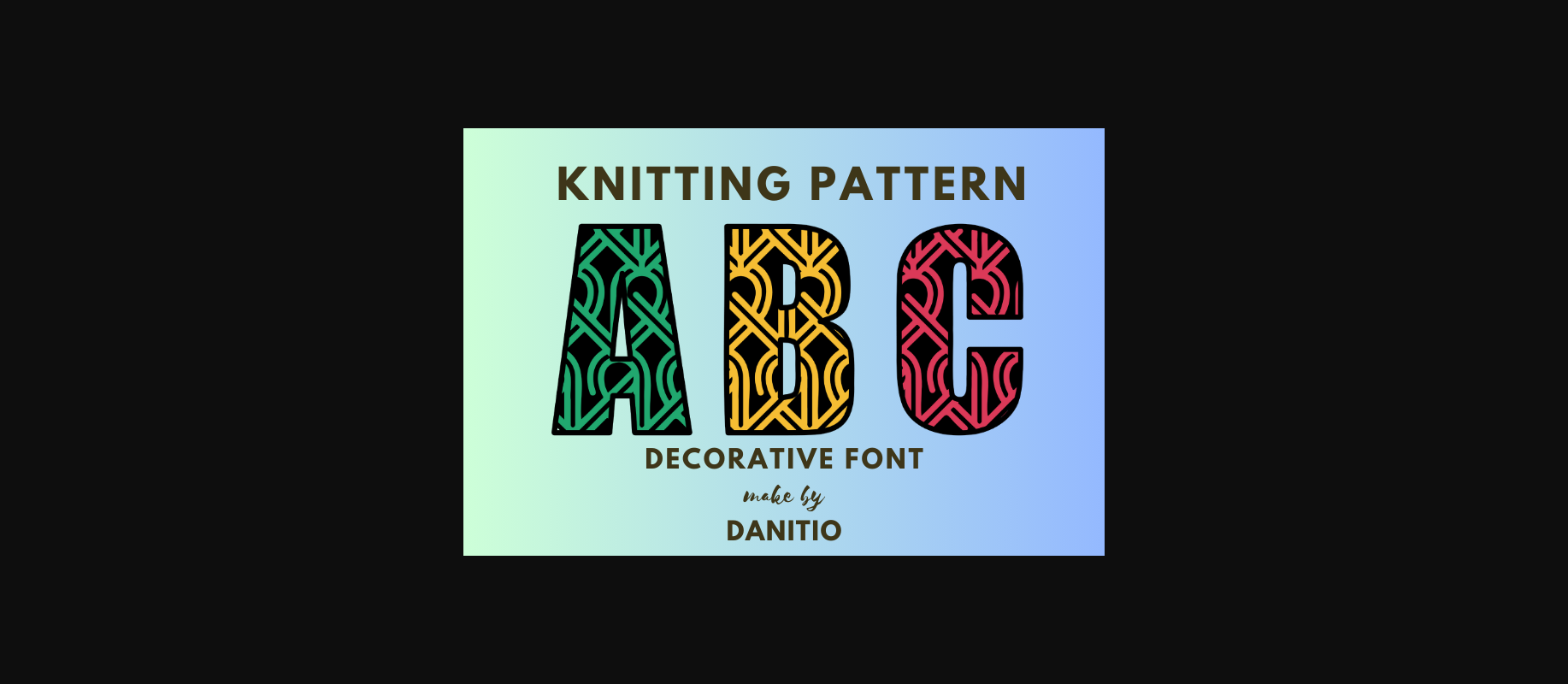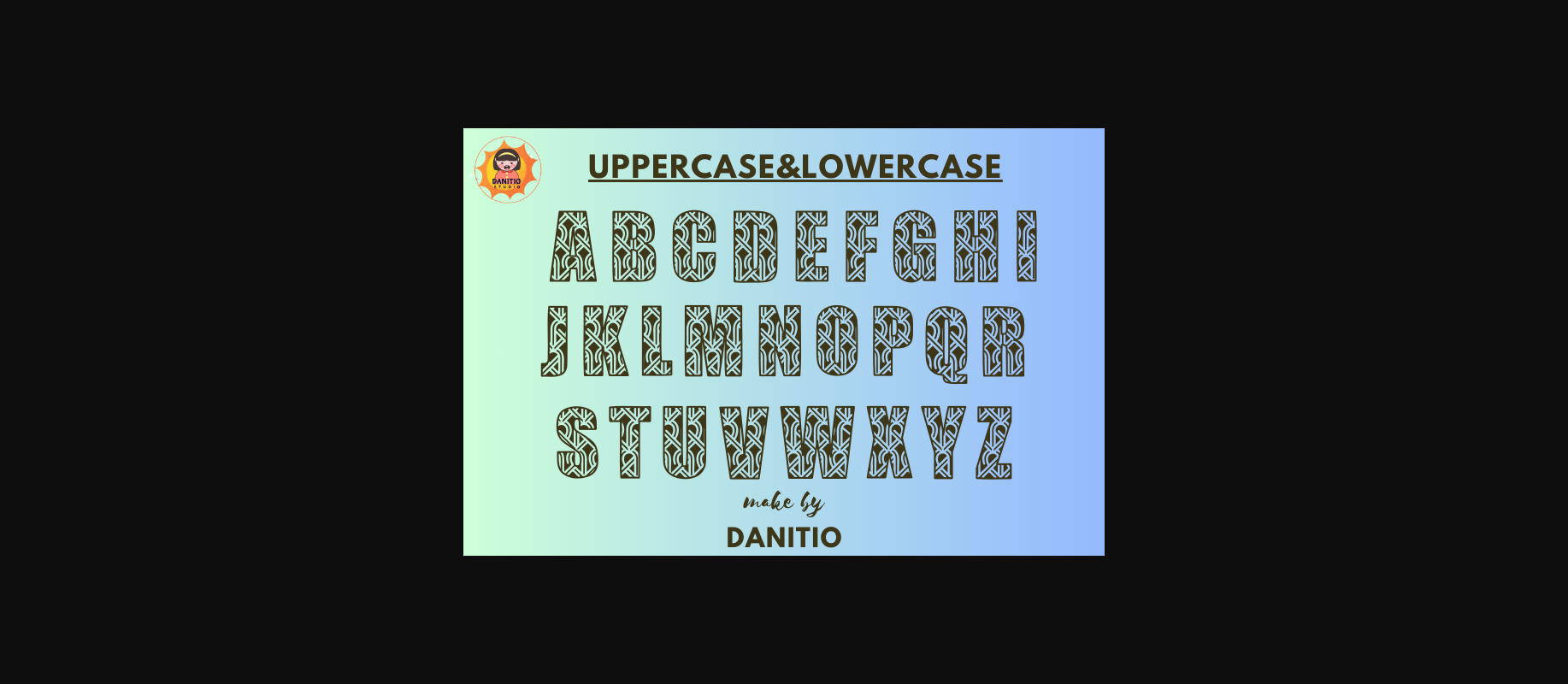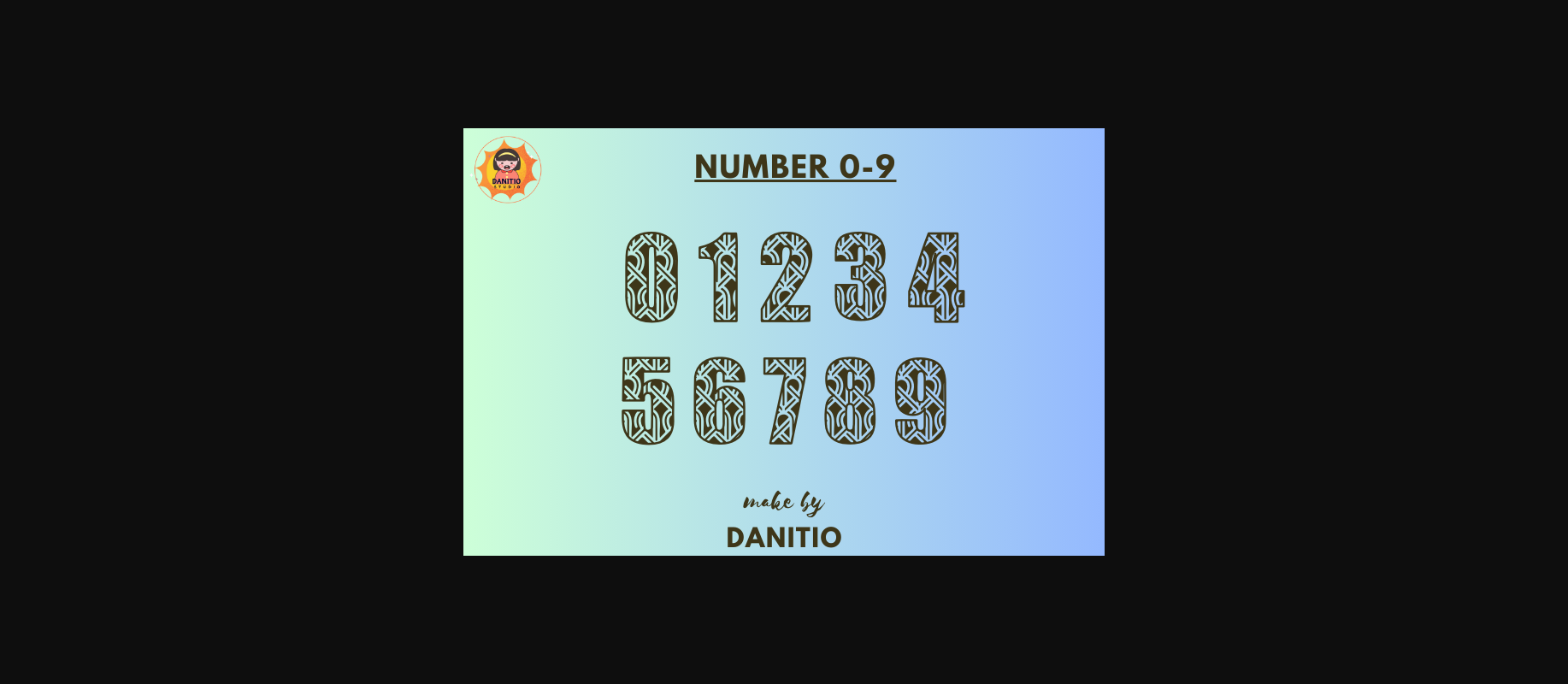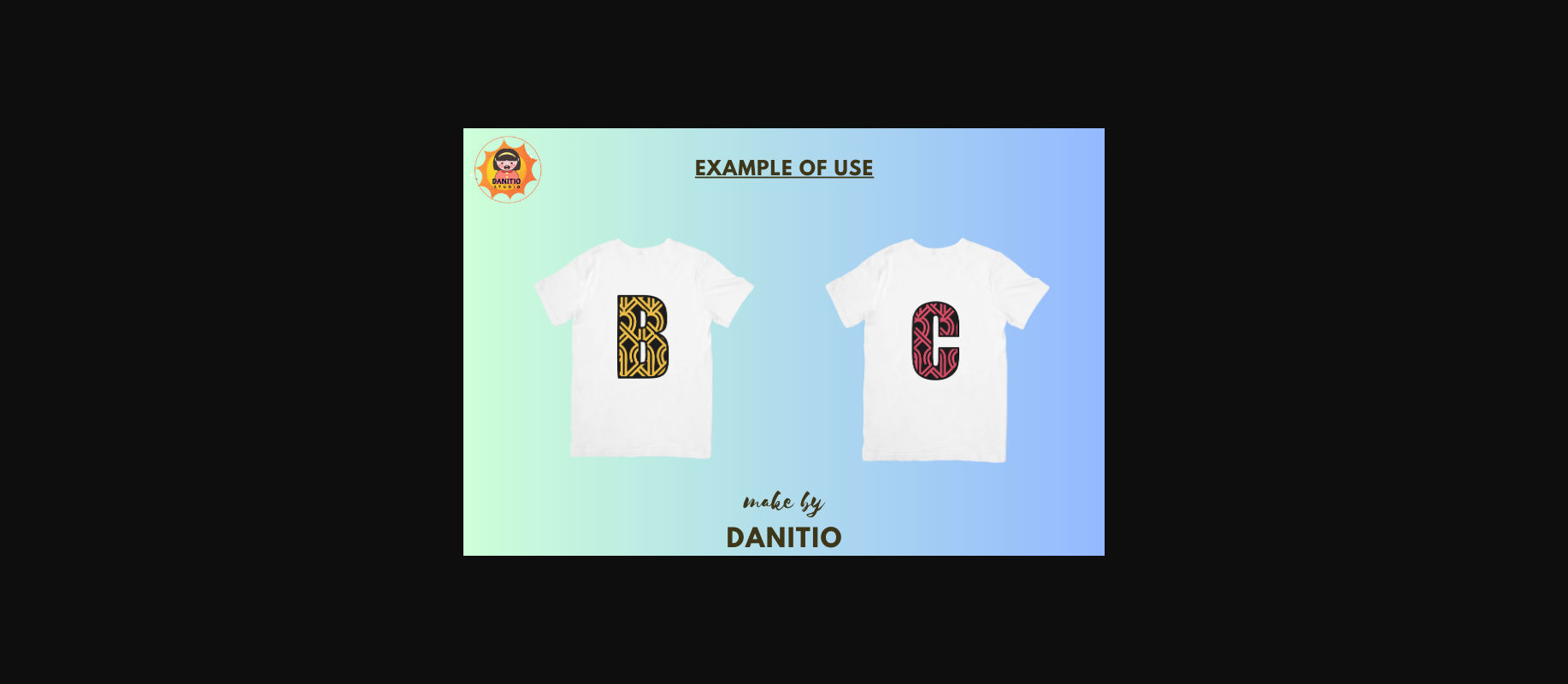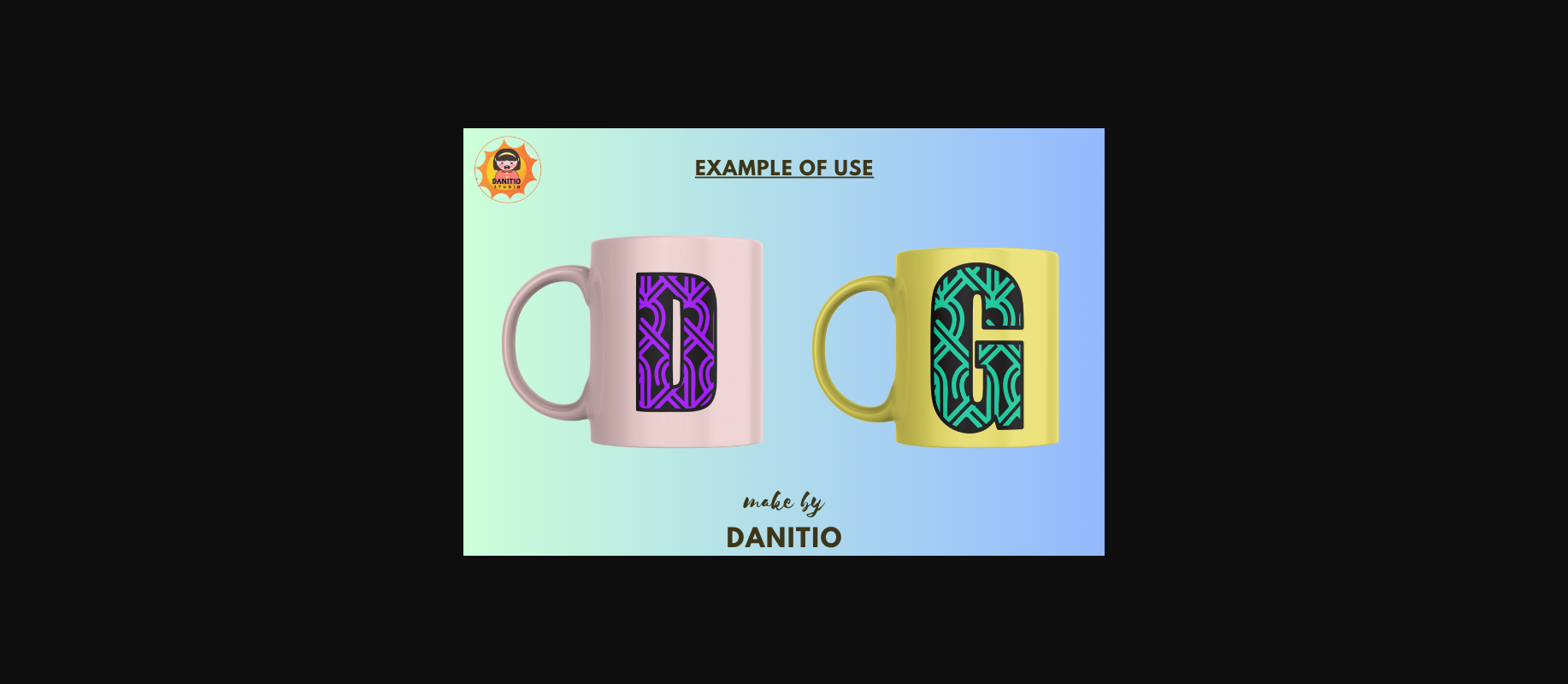
Knitting Pattern Font
About Knitting Pattern Font
Knitting Pattern is a decorative font that combines the weaving shapes of yarn to create a pattern. Mixed with letters in alternating order to form a pattern. which makes any design Look cool and modern and Suitable for various products that you think are appropriate, such as invitation cards, stationery, mugs, tote bags, pillows, phone cases, or party decorations. I hope you enjoy my fonts.